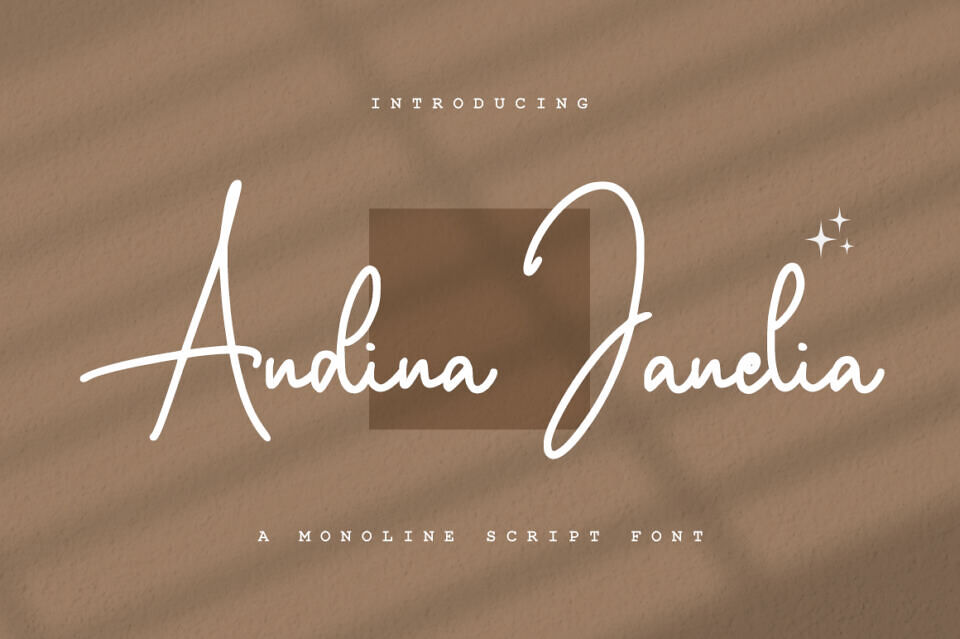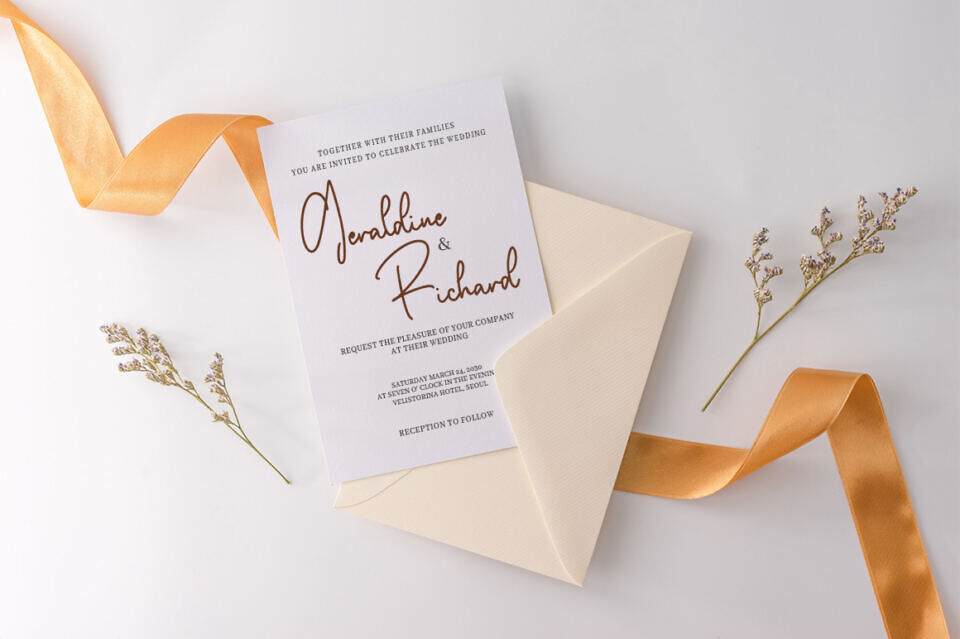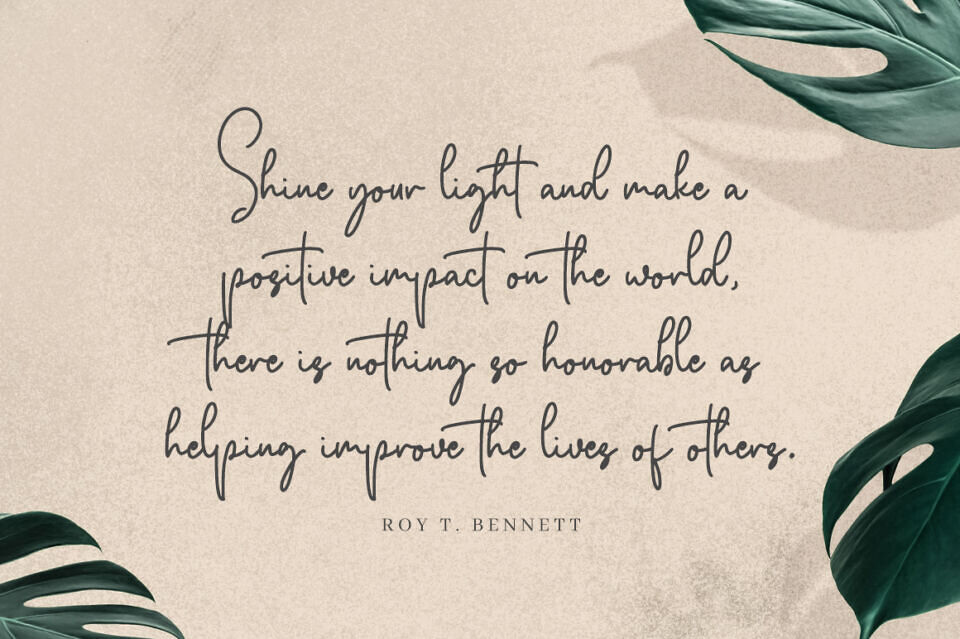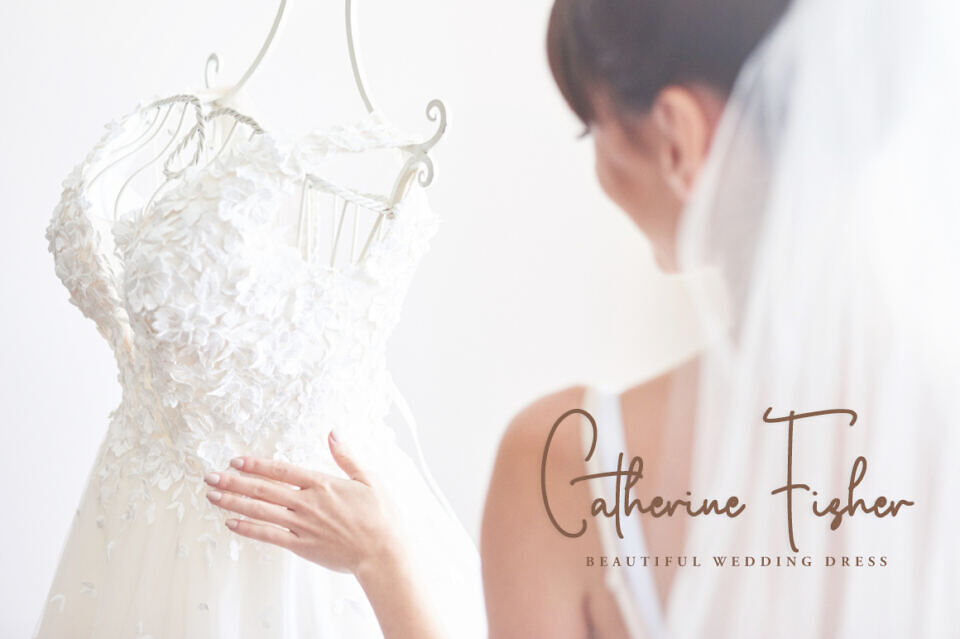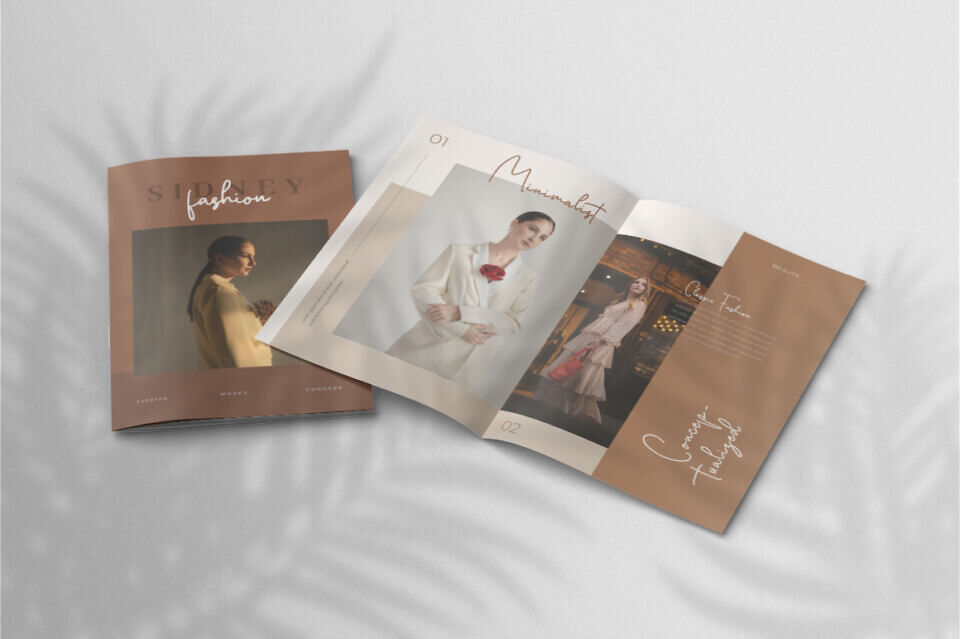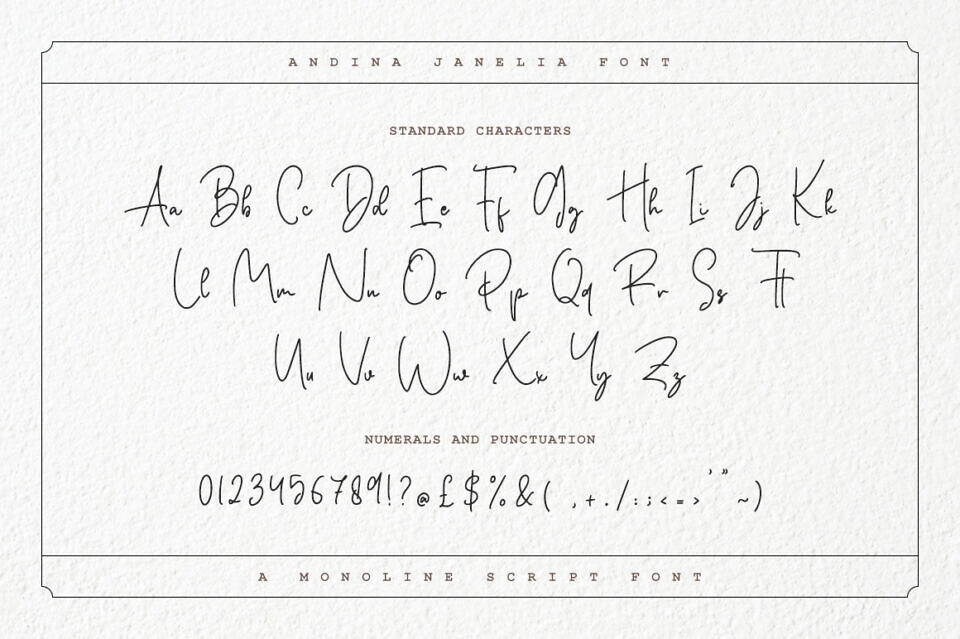
Andina Janelia Font
Andina Janelia is a modern signature font which is combining classic calligraphy with a modern style. Its dancing baseline will give your design an elegant and modern touch.
Designed by: Rockboy Studio